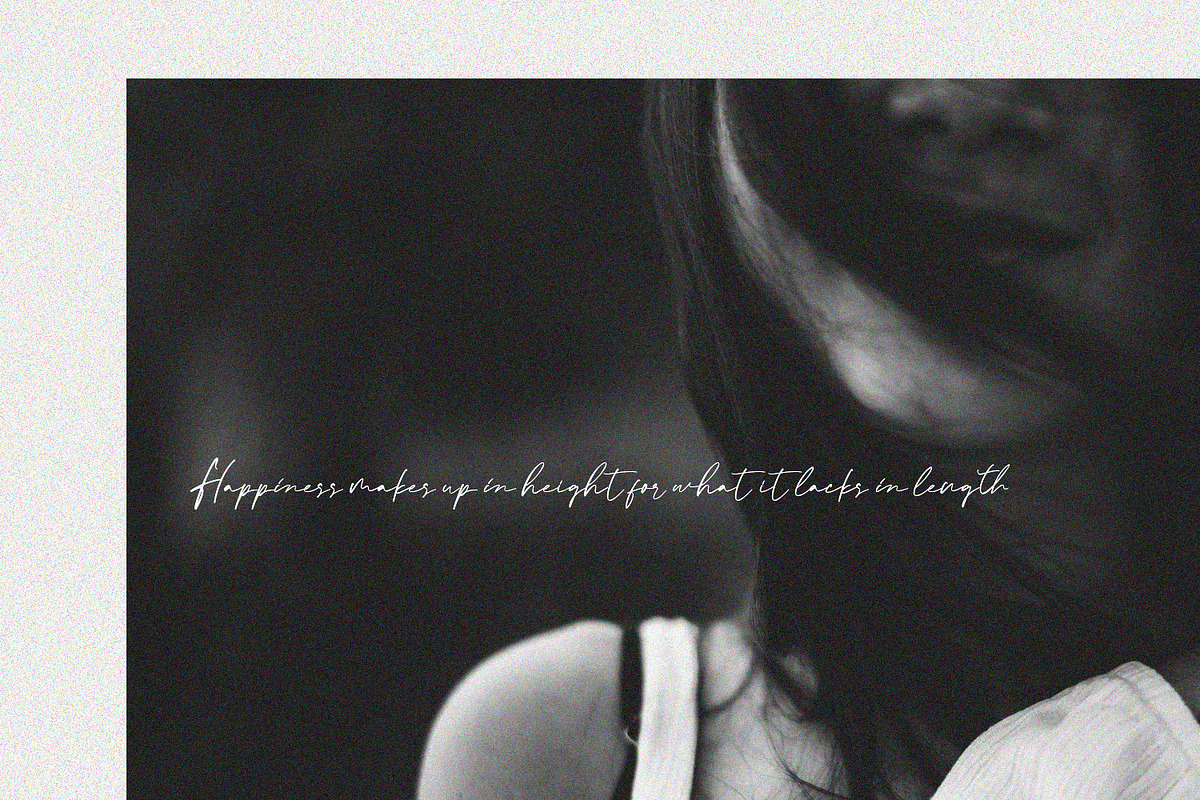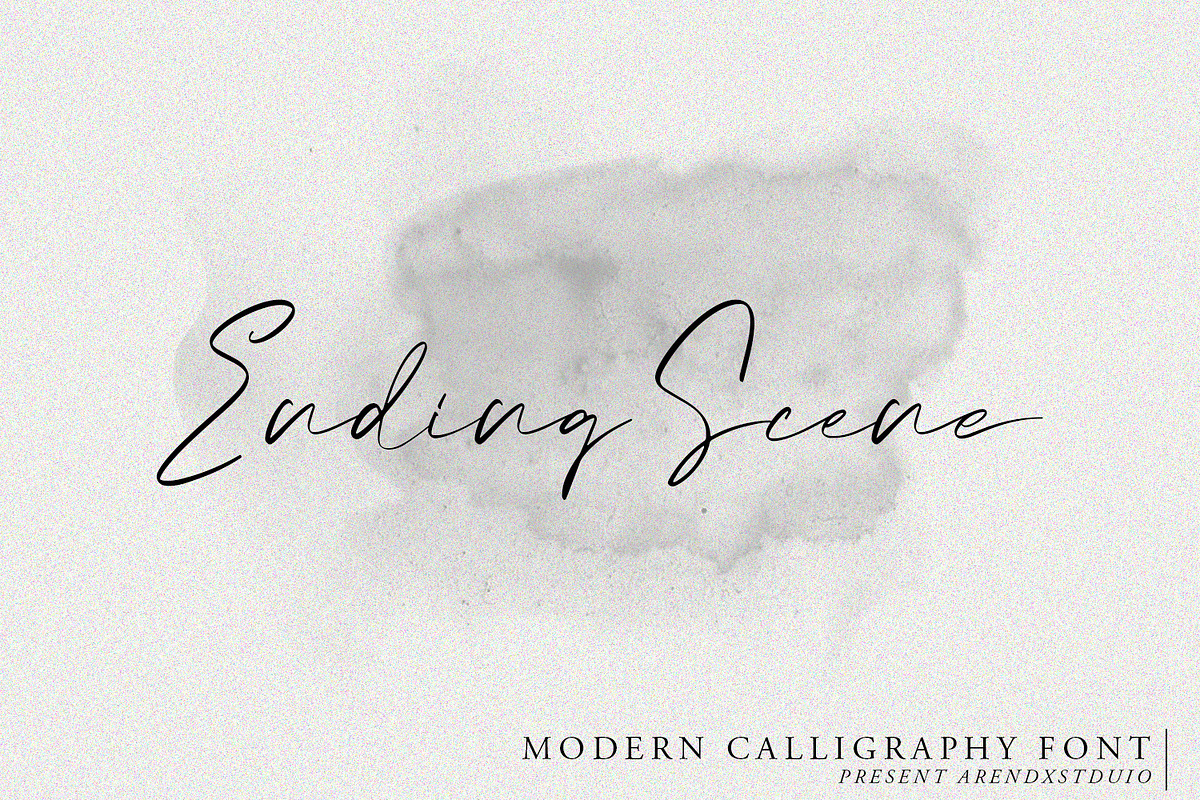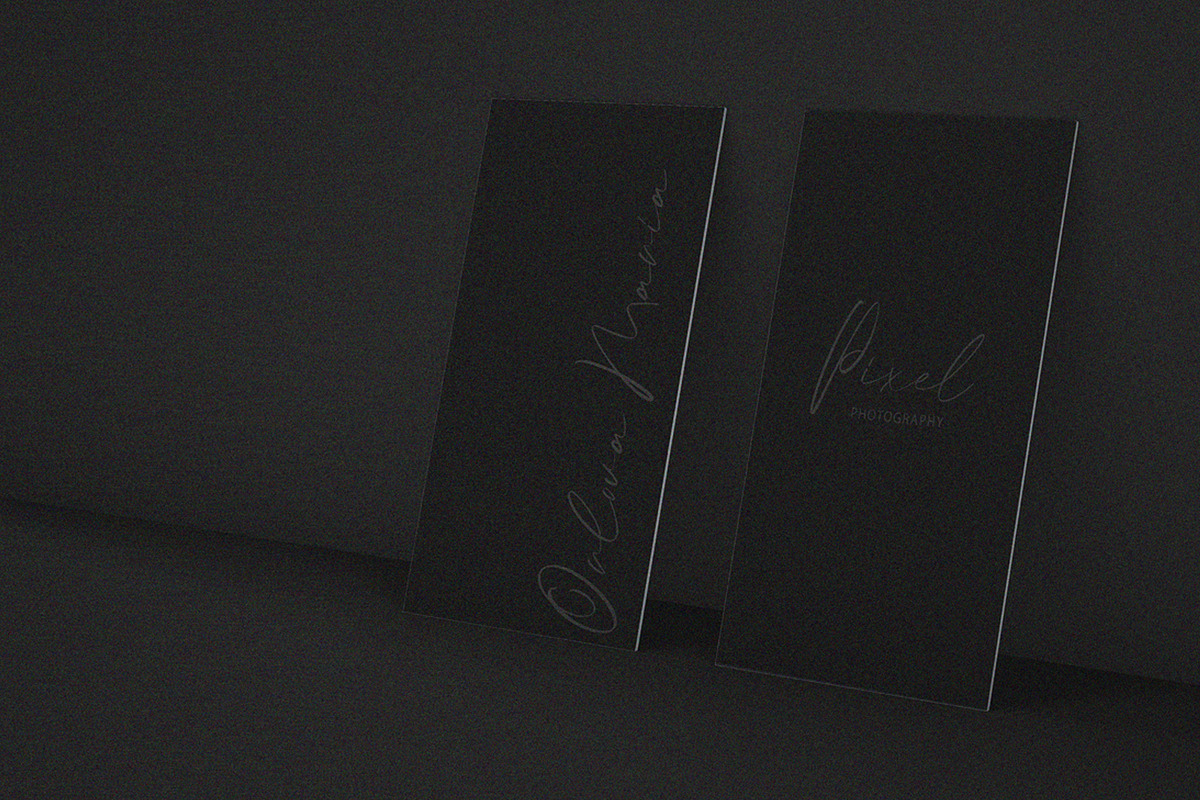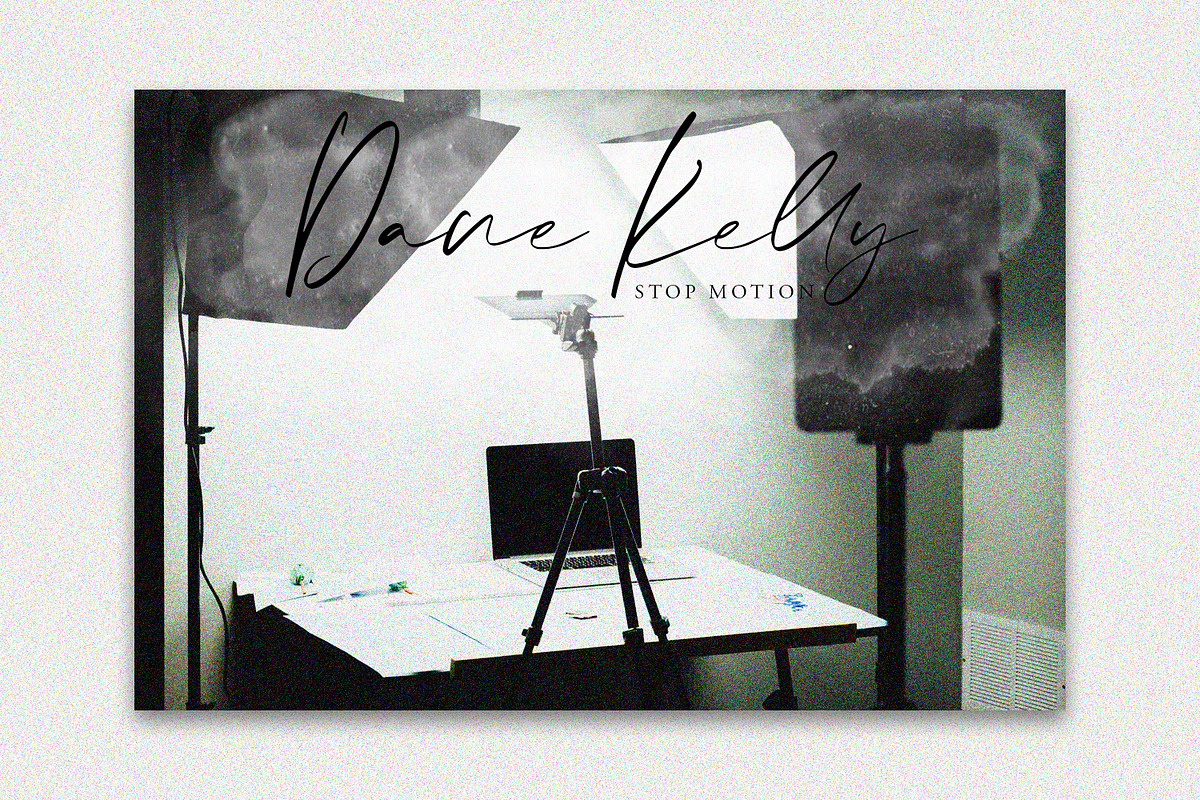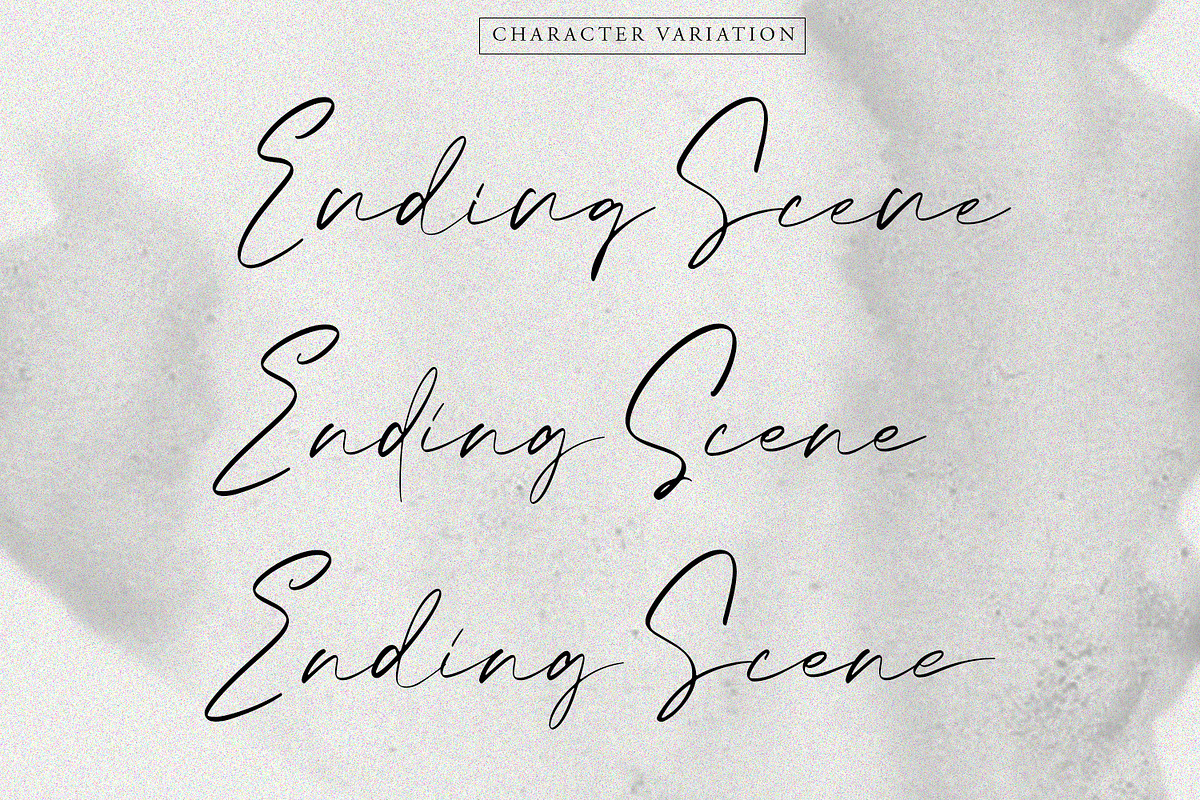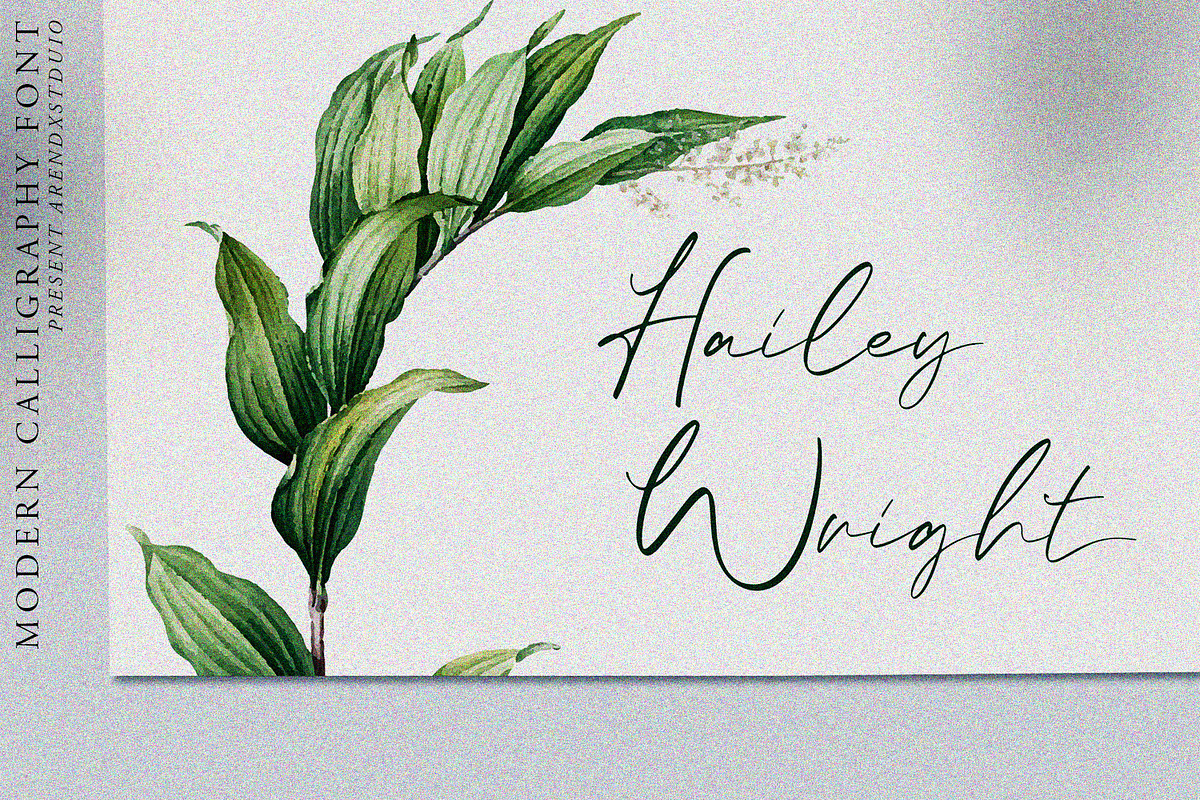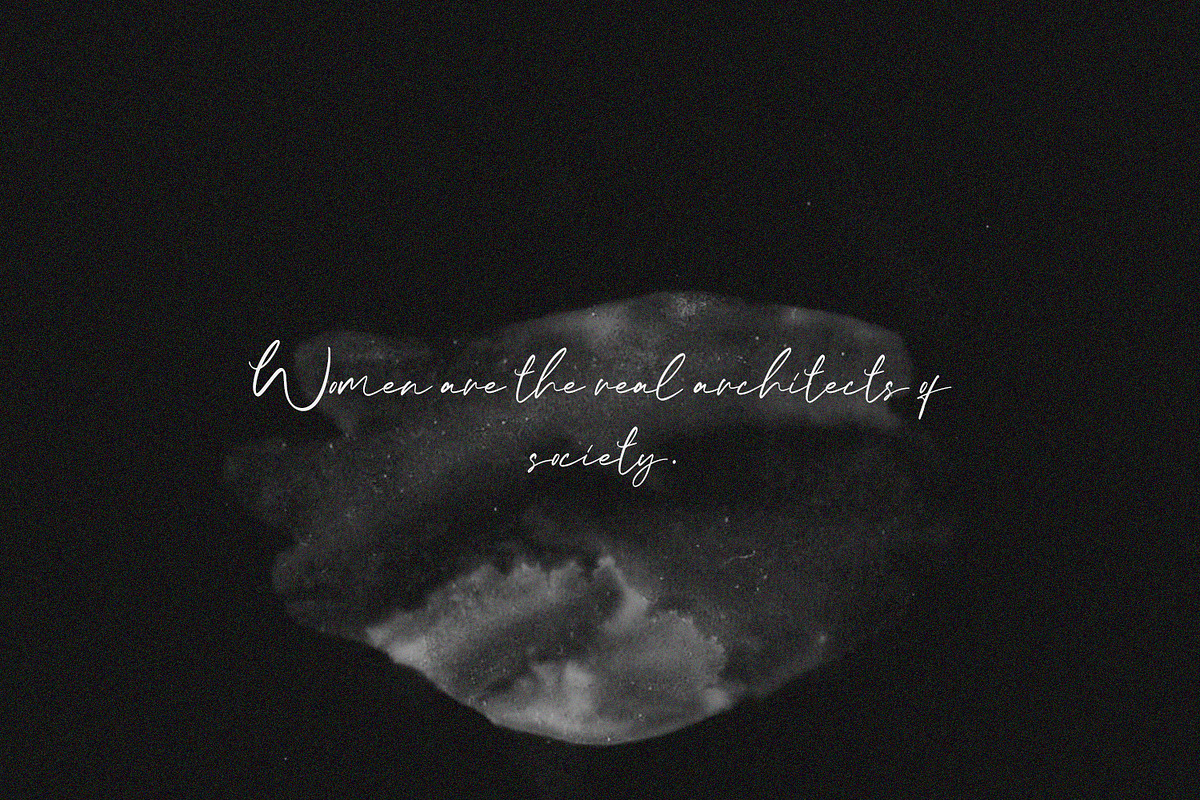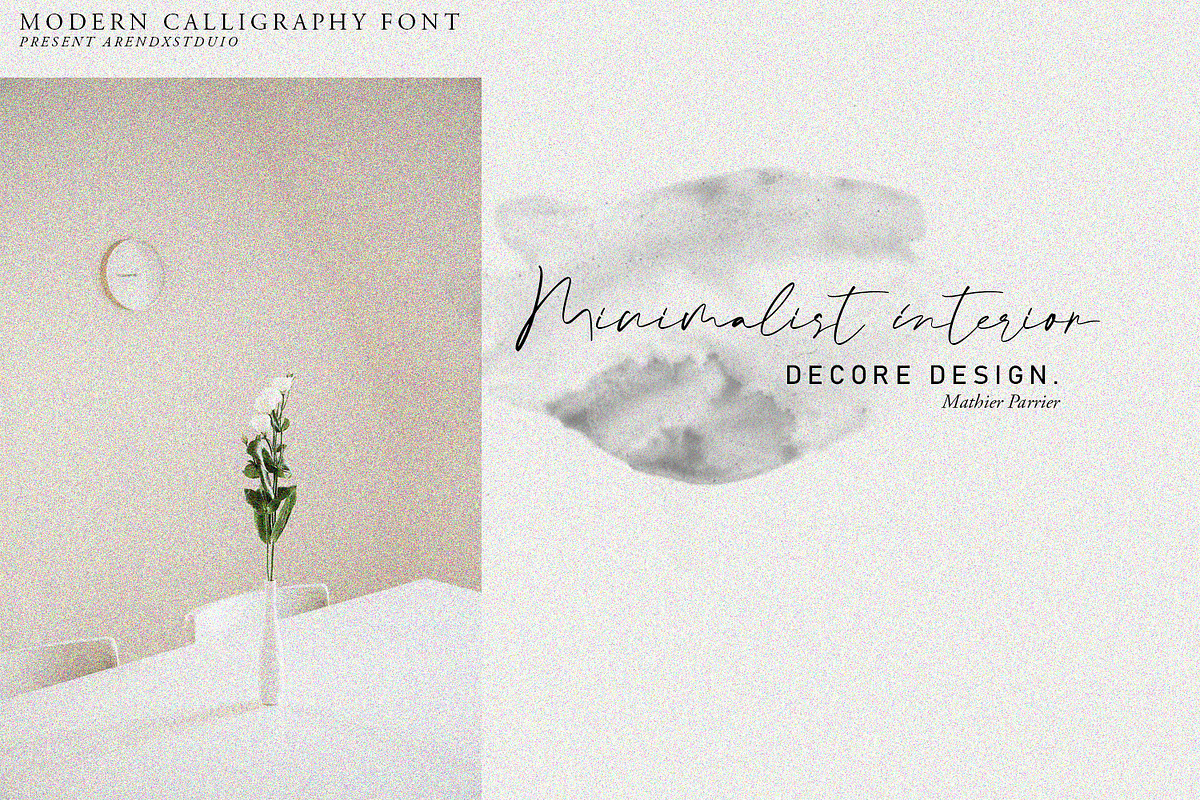
Ending Scene - Calligraphy Font
Welcome to my latest font called Ending Scene, carrying the modern Calligraphy Font with a custom style that is not dynamic so you will get an incredible sensation when using this font
Ending Scene came with opentype features such stylistic alternates, stylistic sets & ligatures good for logotype, poster, badge, book cover, tshirt design, packaging and any more.